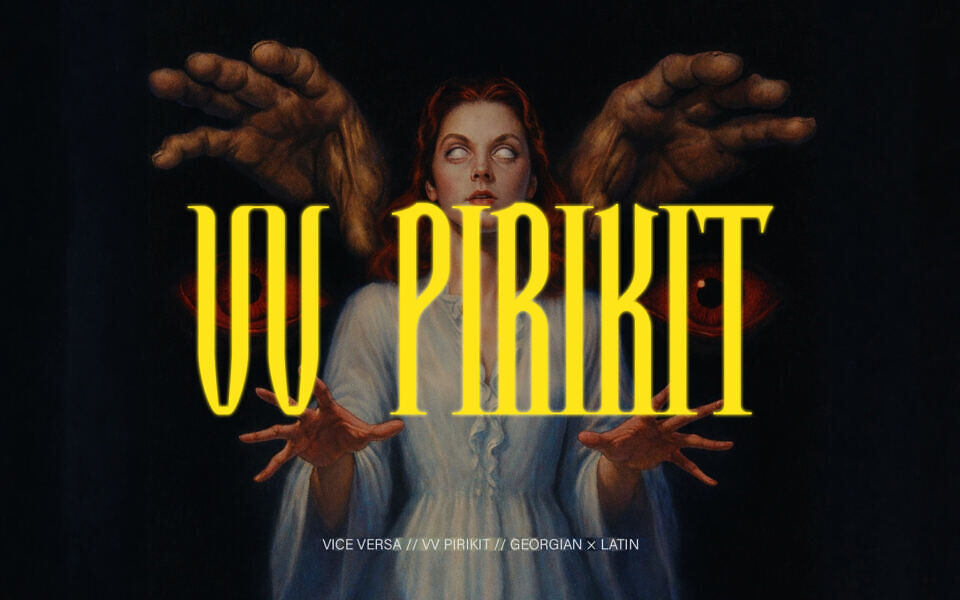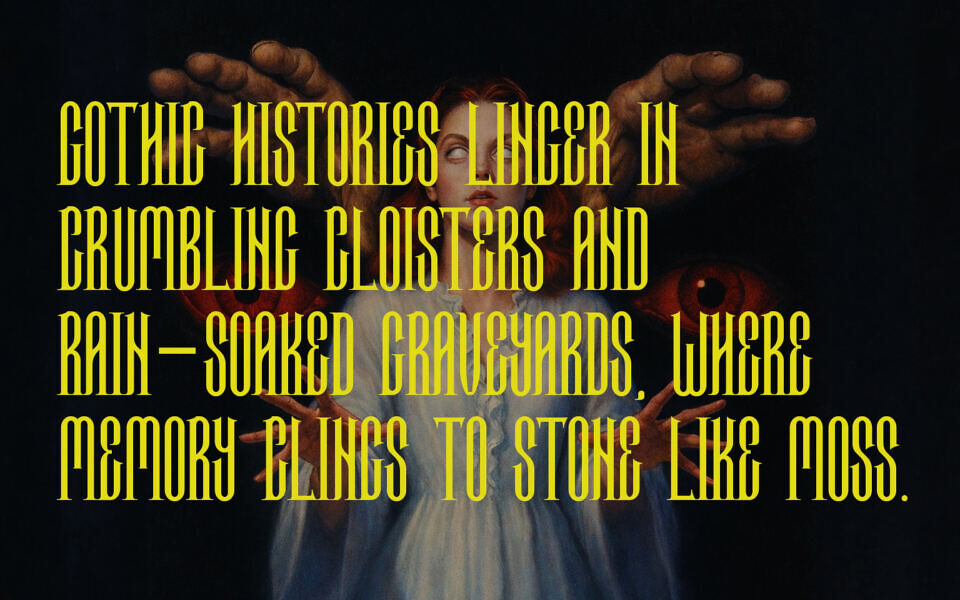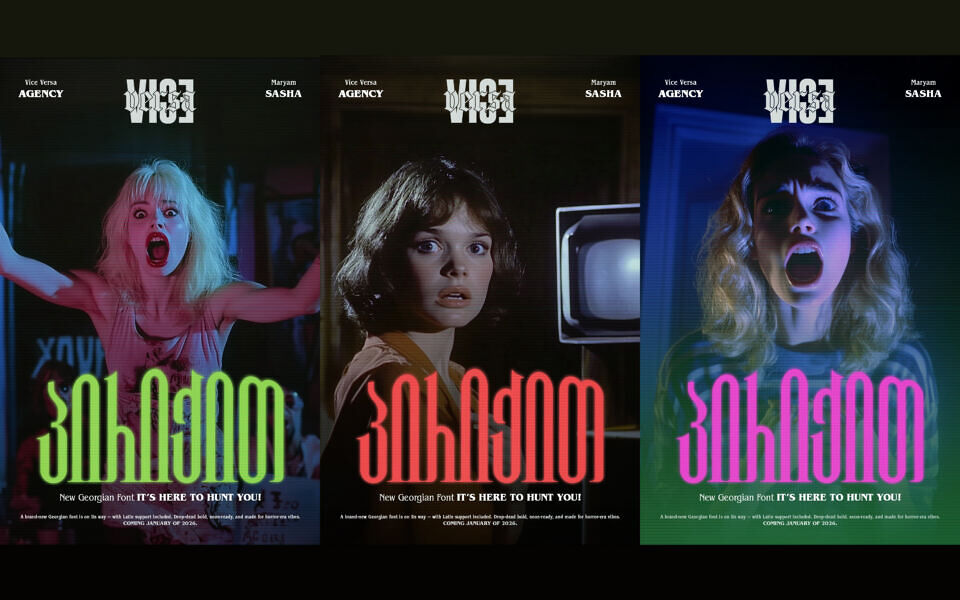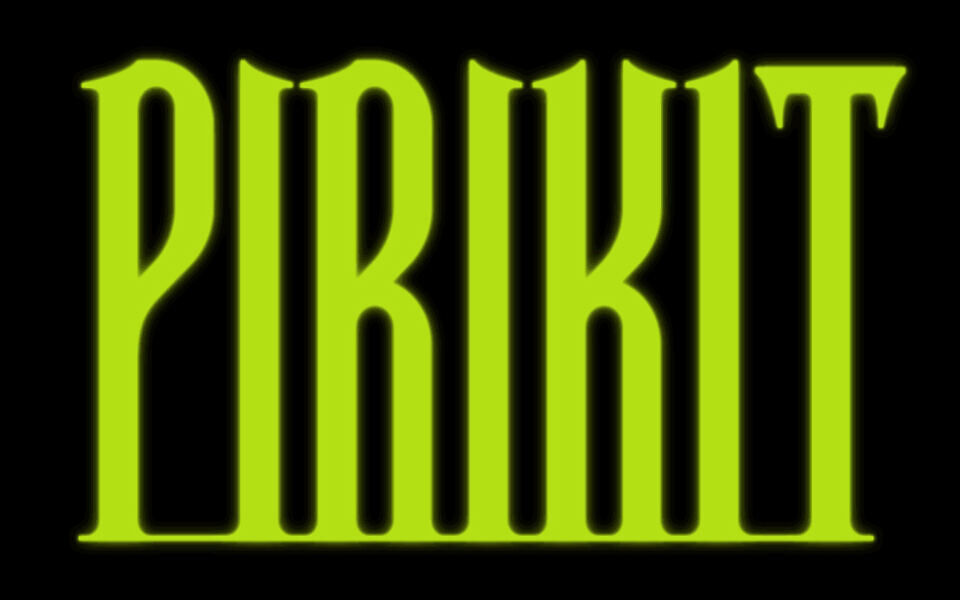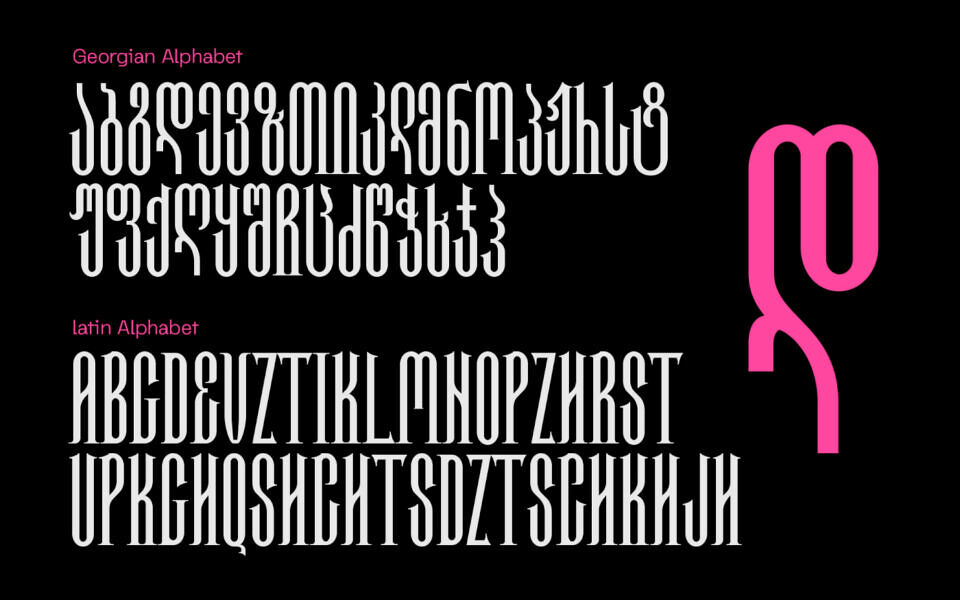
VV Pirikit Font
VV Pirikit is a striking free display font from Vice Versa Agency, blending eerie Gothic aesthetics with a modern, ultra-condensed silhouette. This tall, high-contrast typeface features sharp terminals and elongated proportions, making it perfect for horror-themed posters, editorial headlines, and experimental branding.
Designed by Maryam Sasha, it supports both Latin and Georgian alphabets, offering a unique cultural fusion. Its haunting, “neon-ready” style captures a 70s-80s cult cinema vibe, ideal for projects needing a touch of dark, atmospheric elegance.